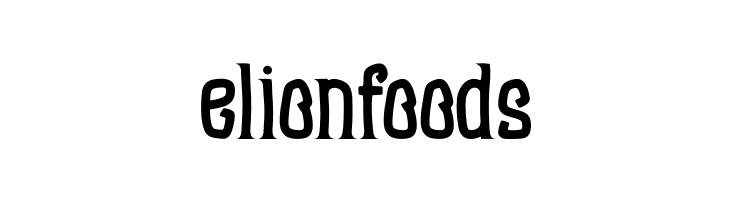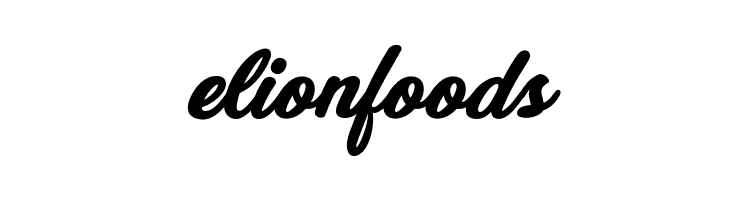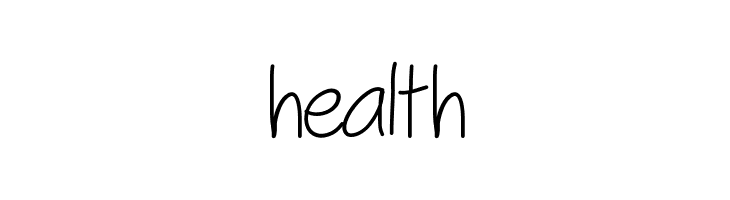
A delicate and elegant handwritten font with fluid, continuous strokes.
Playful, hand-drawn display font with wavy, irregular strokes.
Bold, cursive script with connected, flowing strokes.